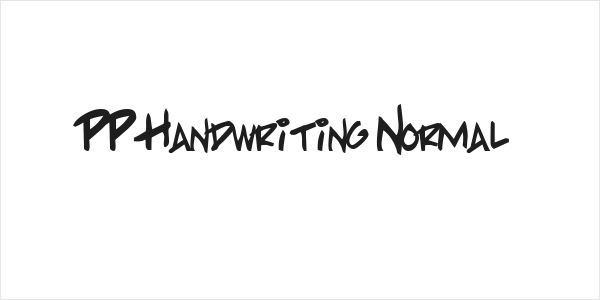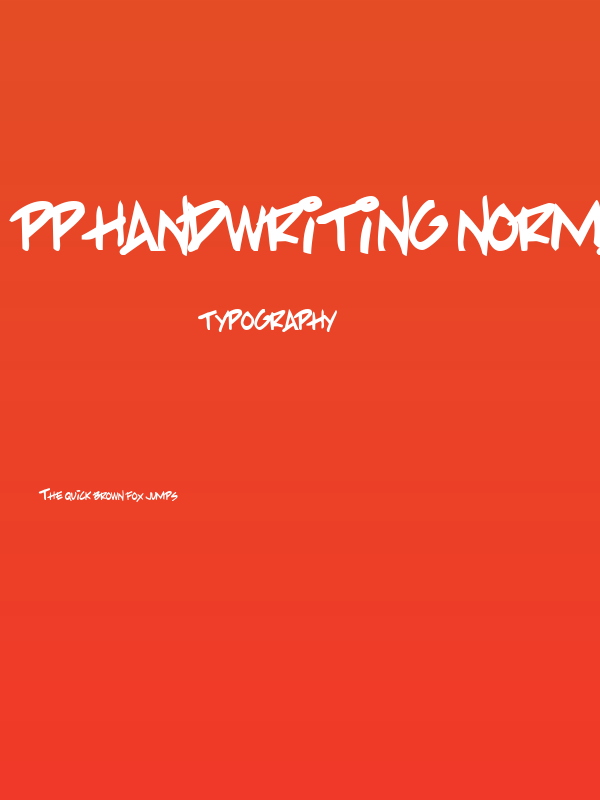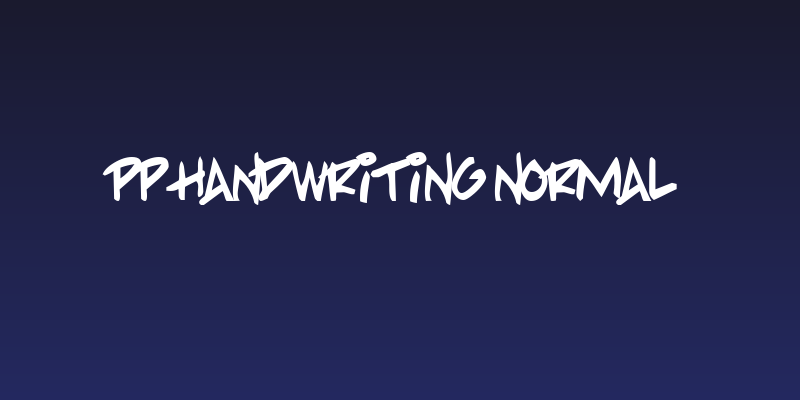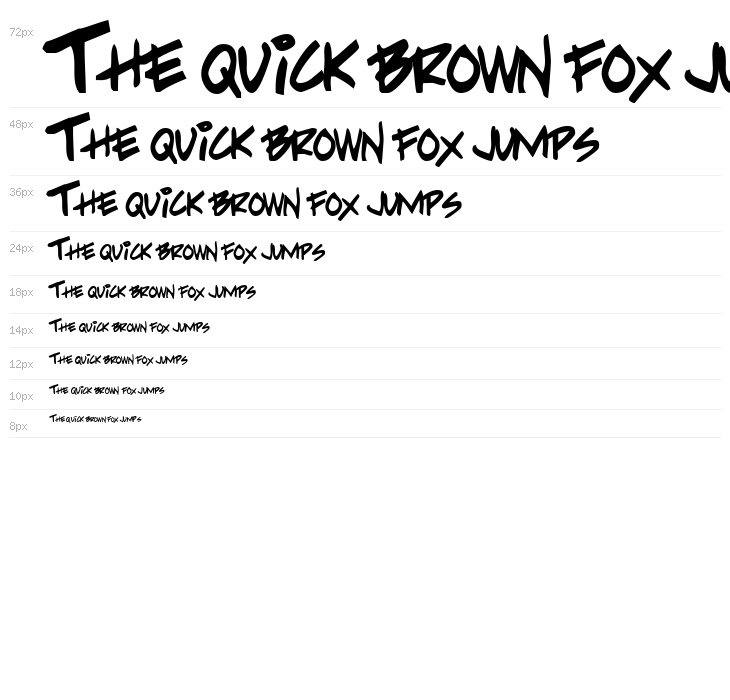
PP Handwriting Normal Font
PP Handwriting Normal Description
This font exudes a casual and energetic vibe, characterized by its bold, handwritten style. The letters are dynamic and slightly slanted, giving a sense of movement and spontaneity. The strokes are thick and consistent, creating a strong visual impact. The uppercase and lowercase letters maintain a cohesive look, while the numbers and special characters are crafted with the same playful energy. This font is perfect for projects that require a personal touch or a lively, informal tone.
| Overall Style | Casual, Energetic |
| Proposed Projects | Ideal for greeting cards, posters, social media graphics, and branding that seeks a personal and lively touch. |